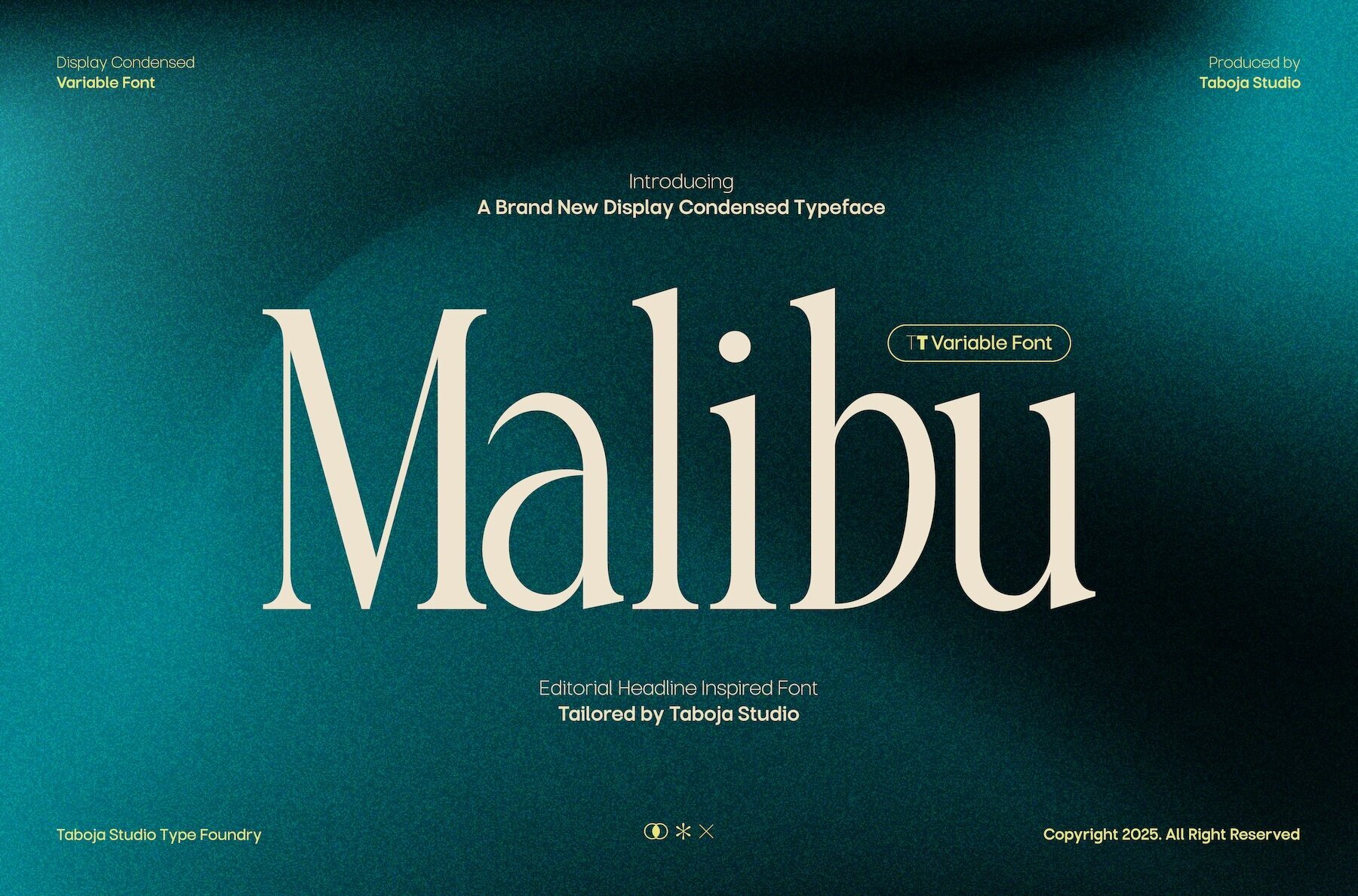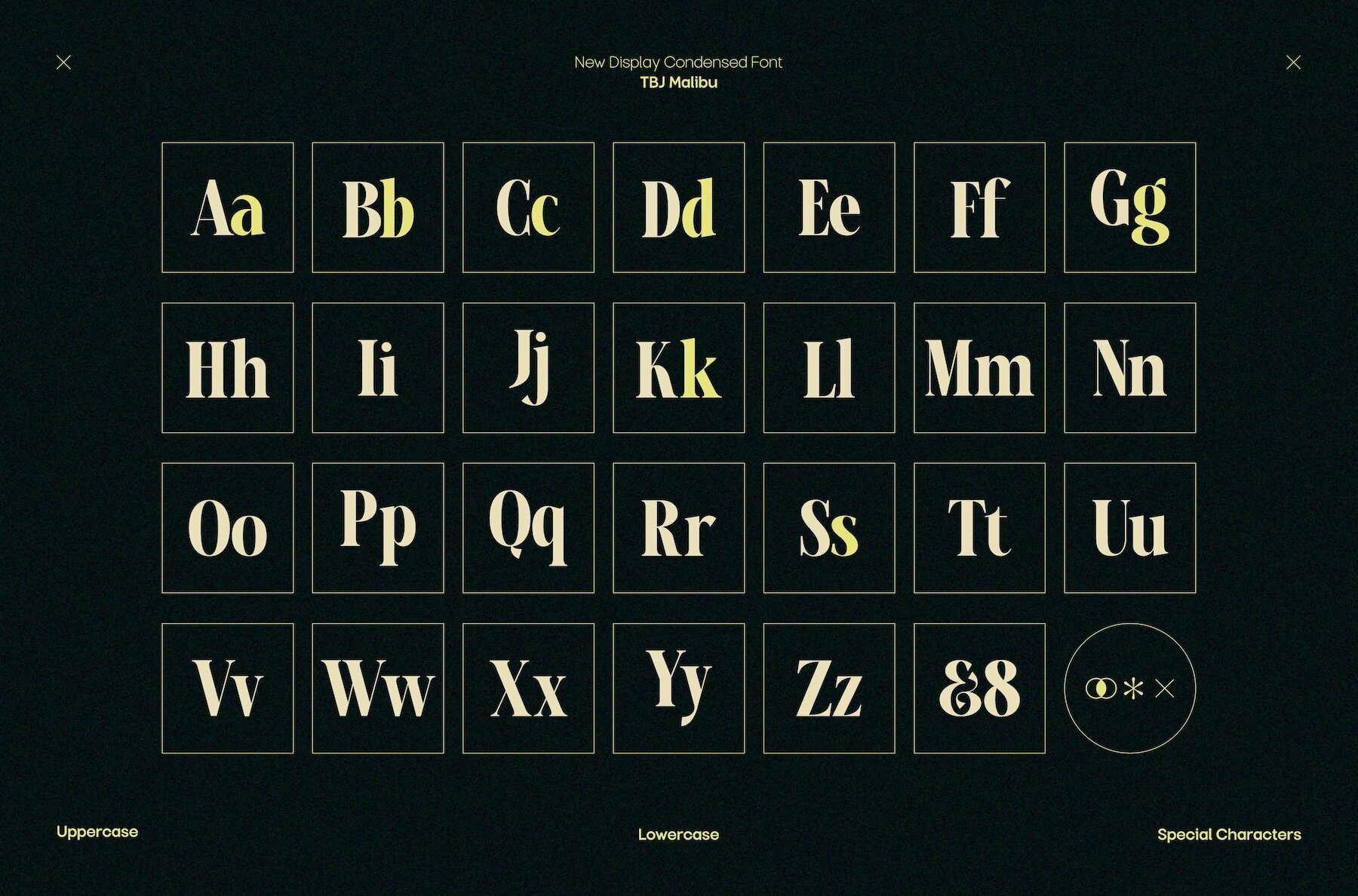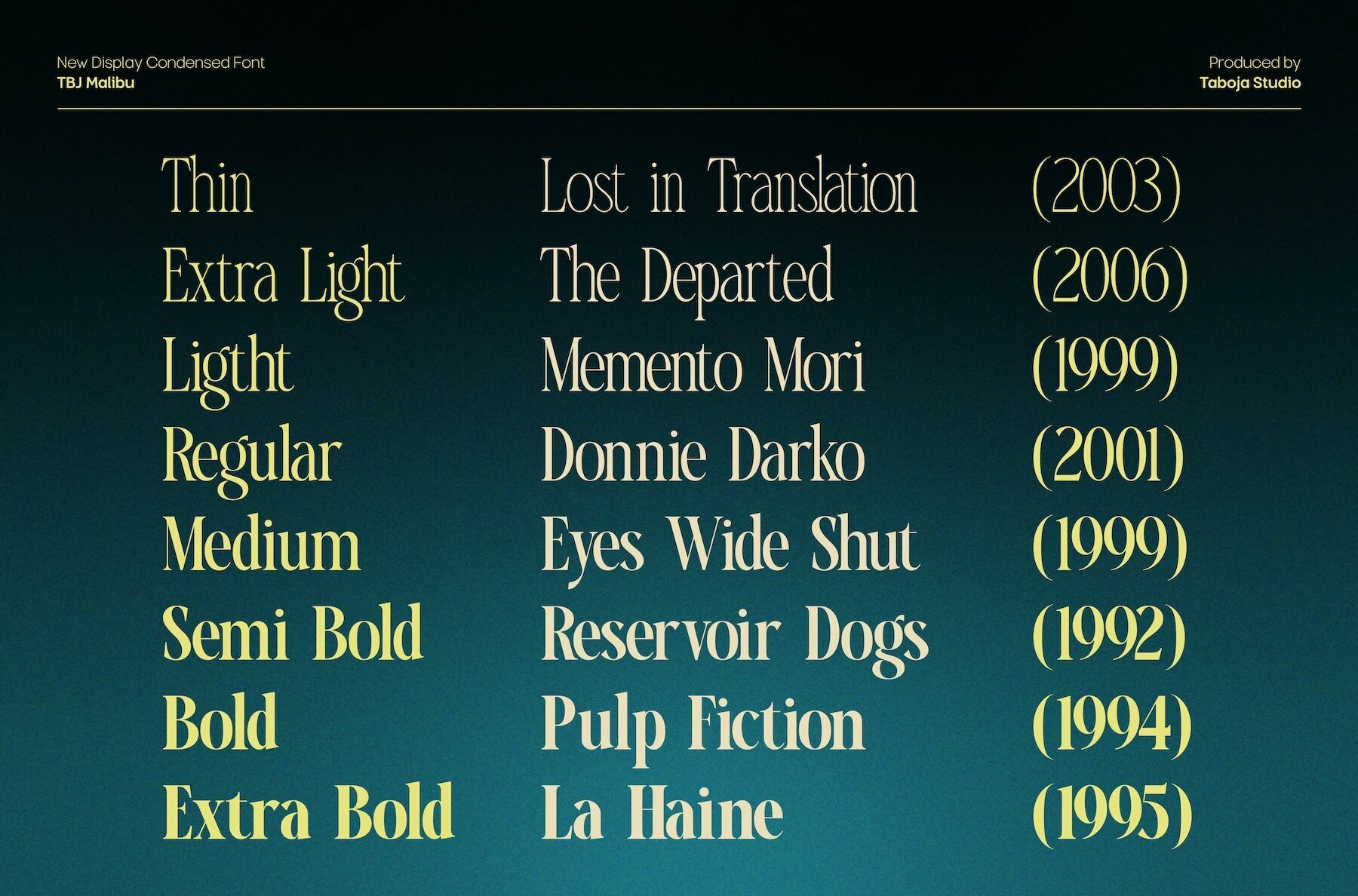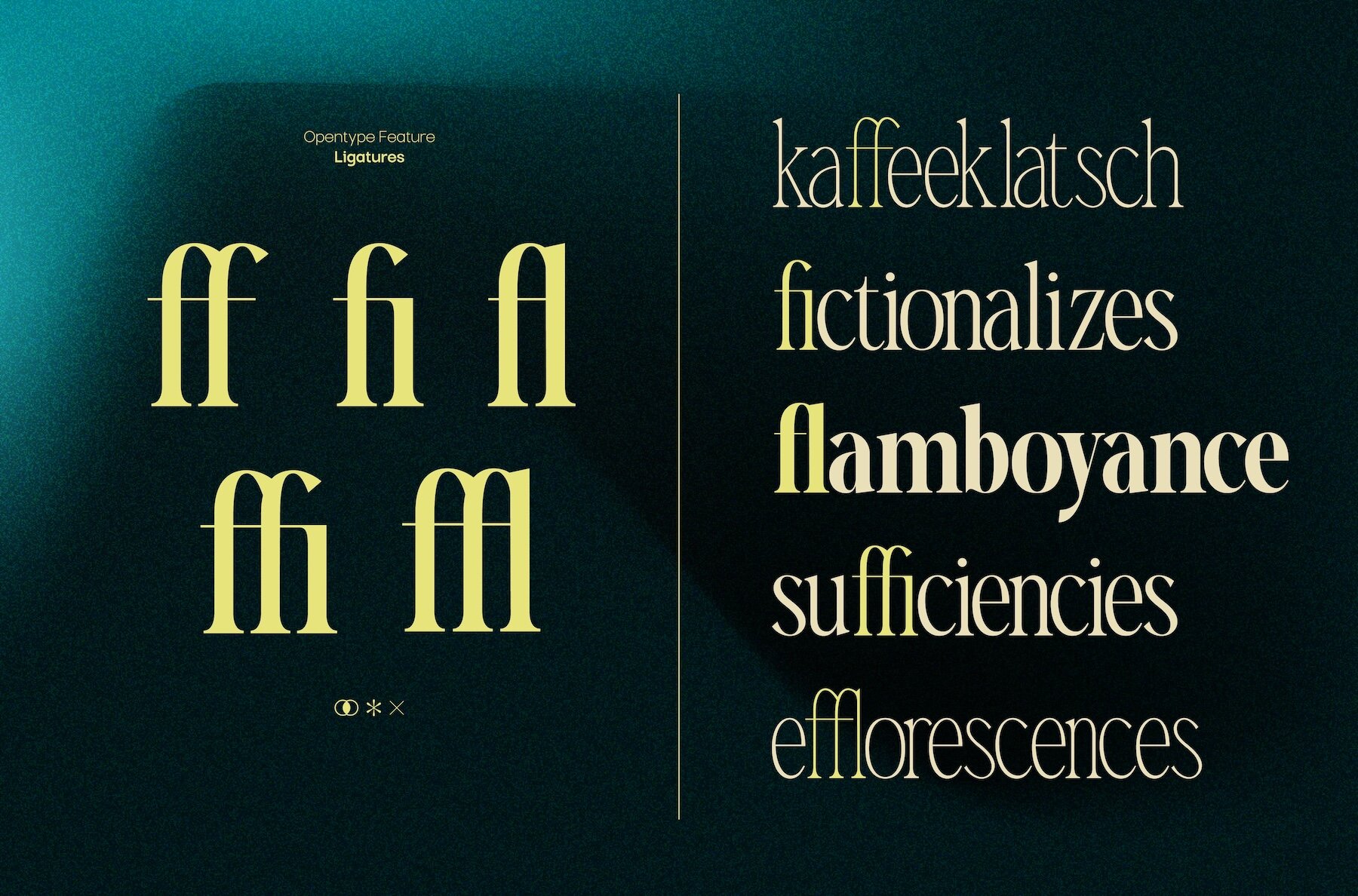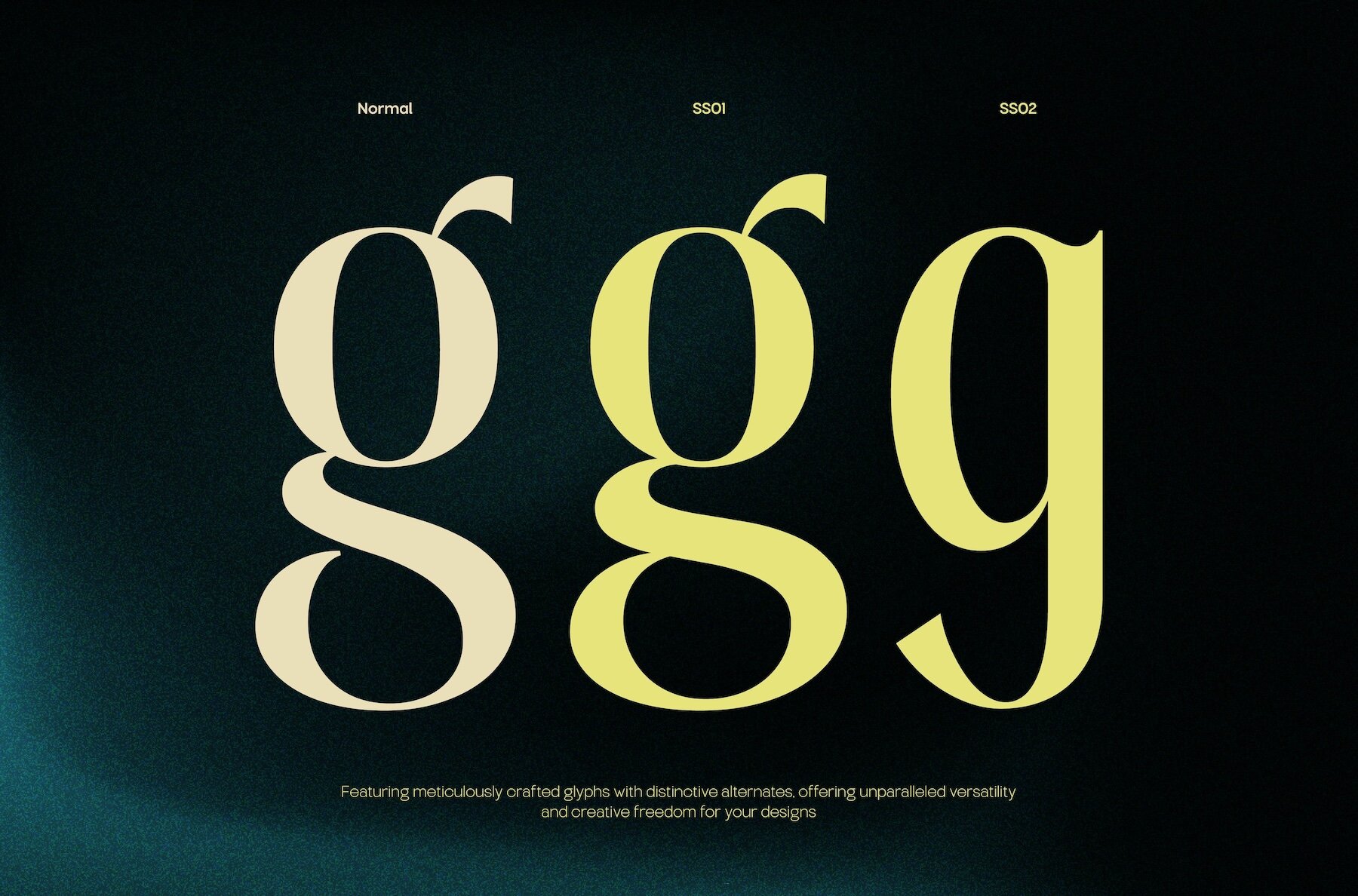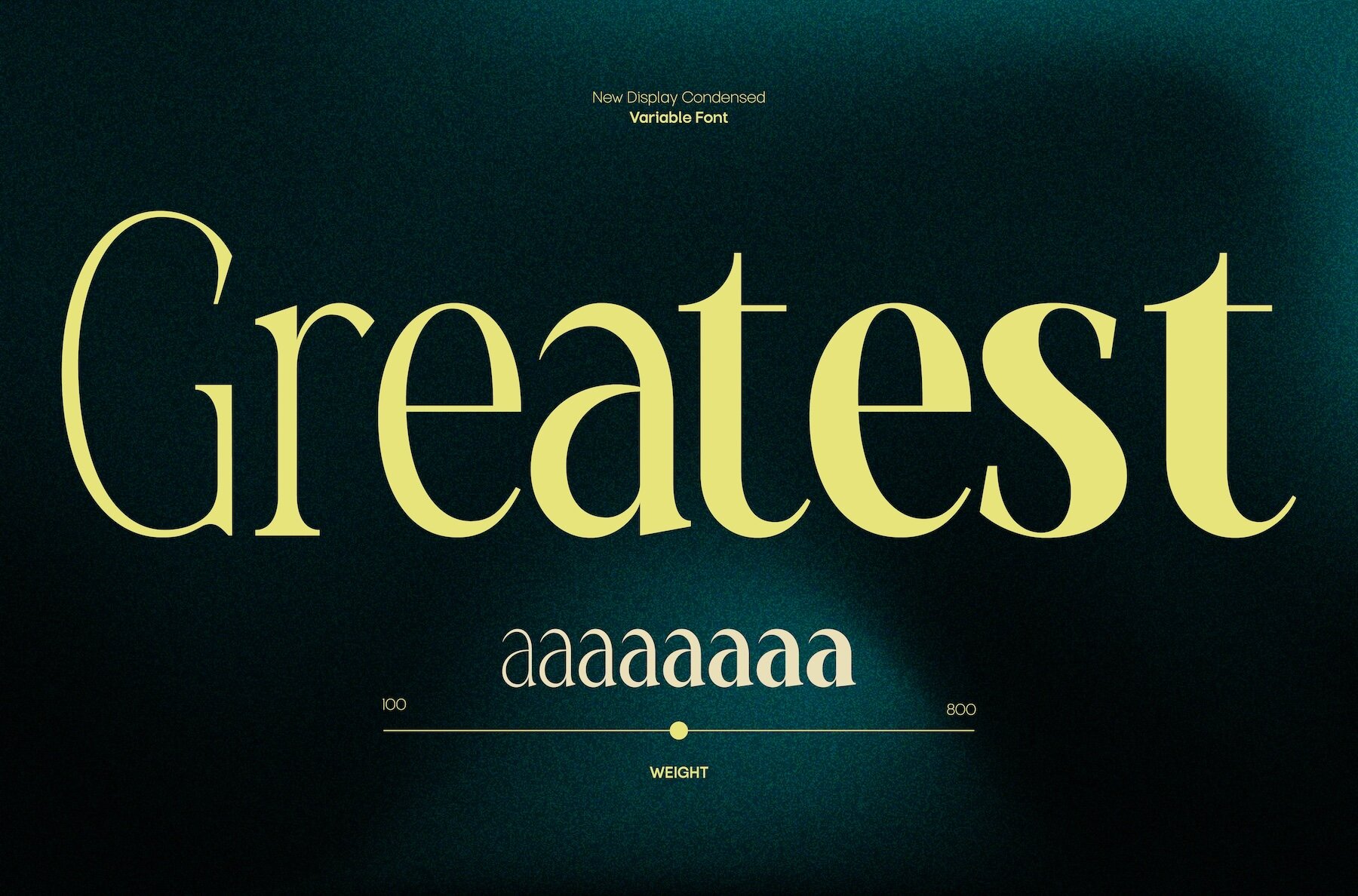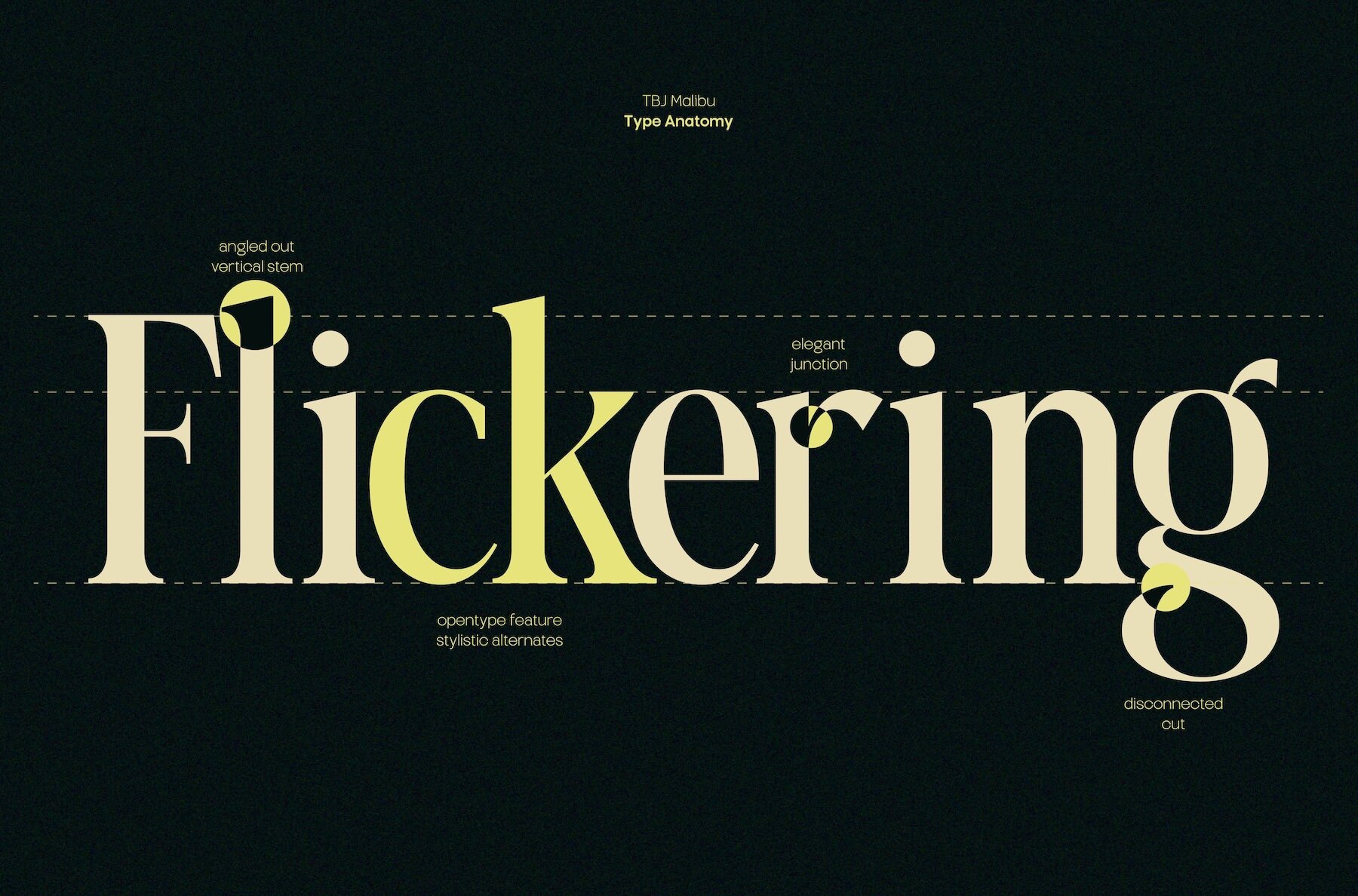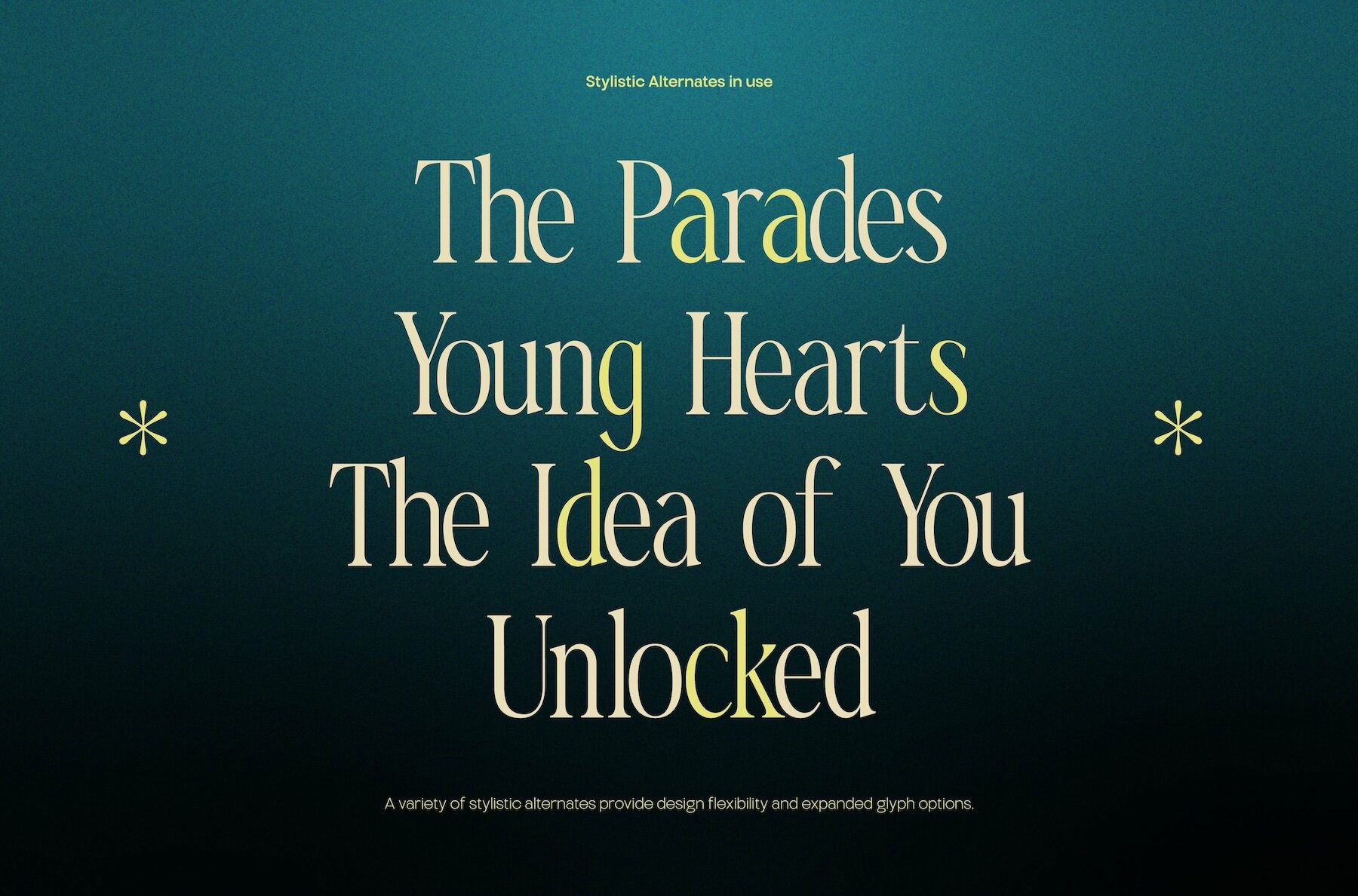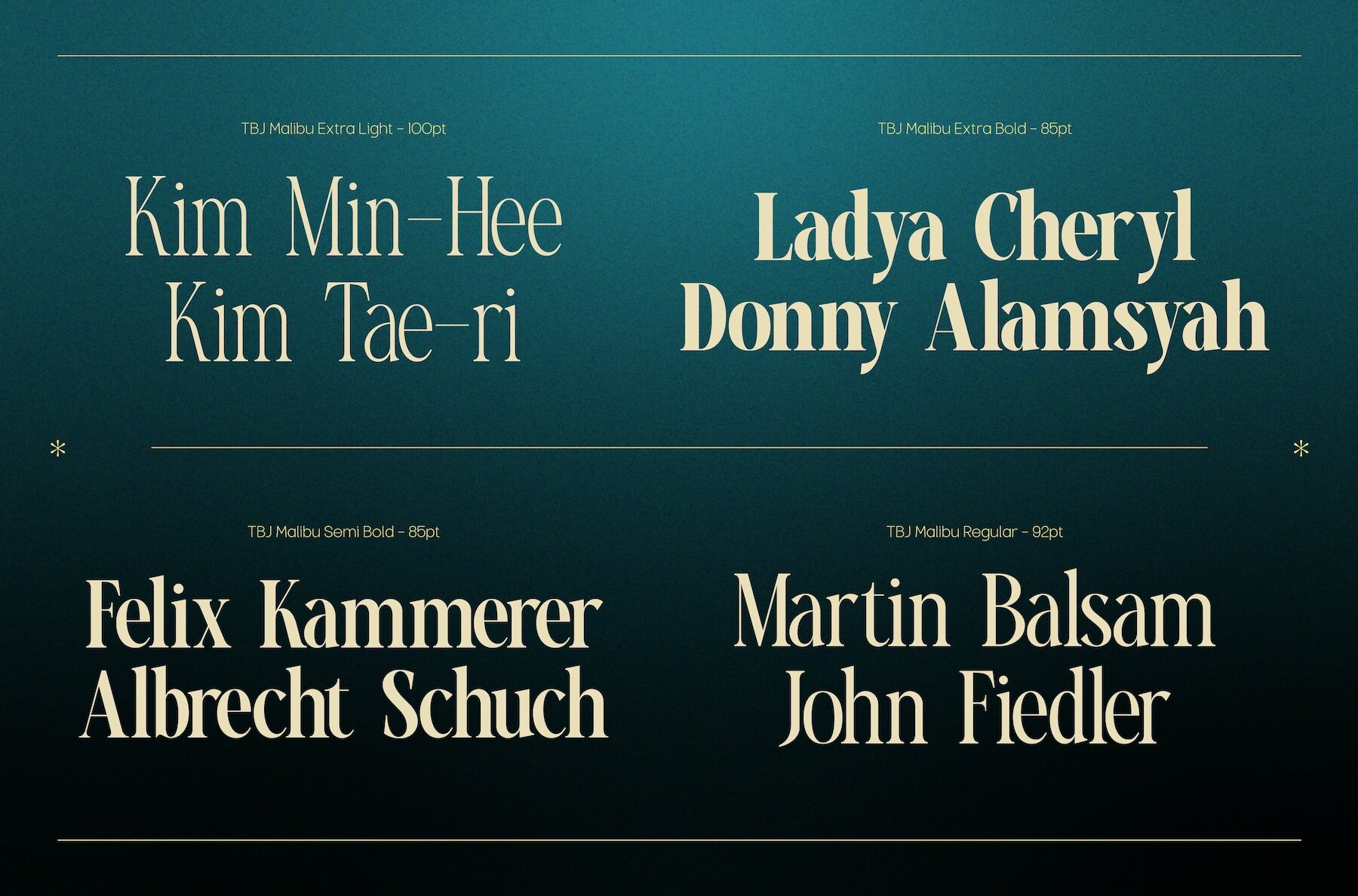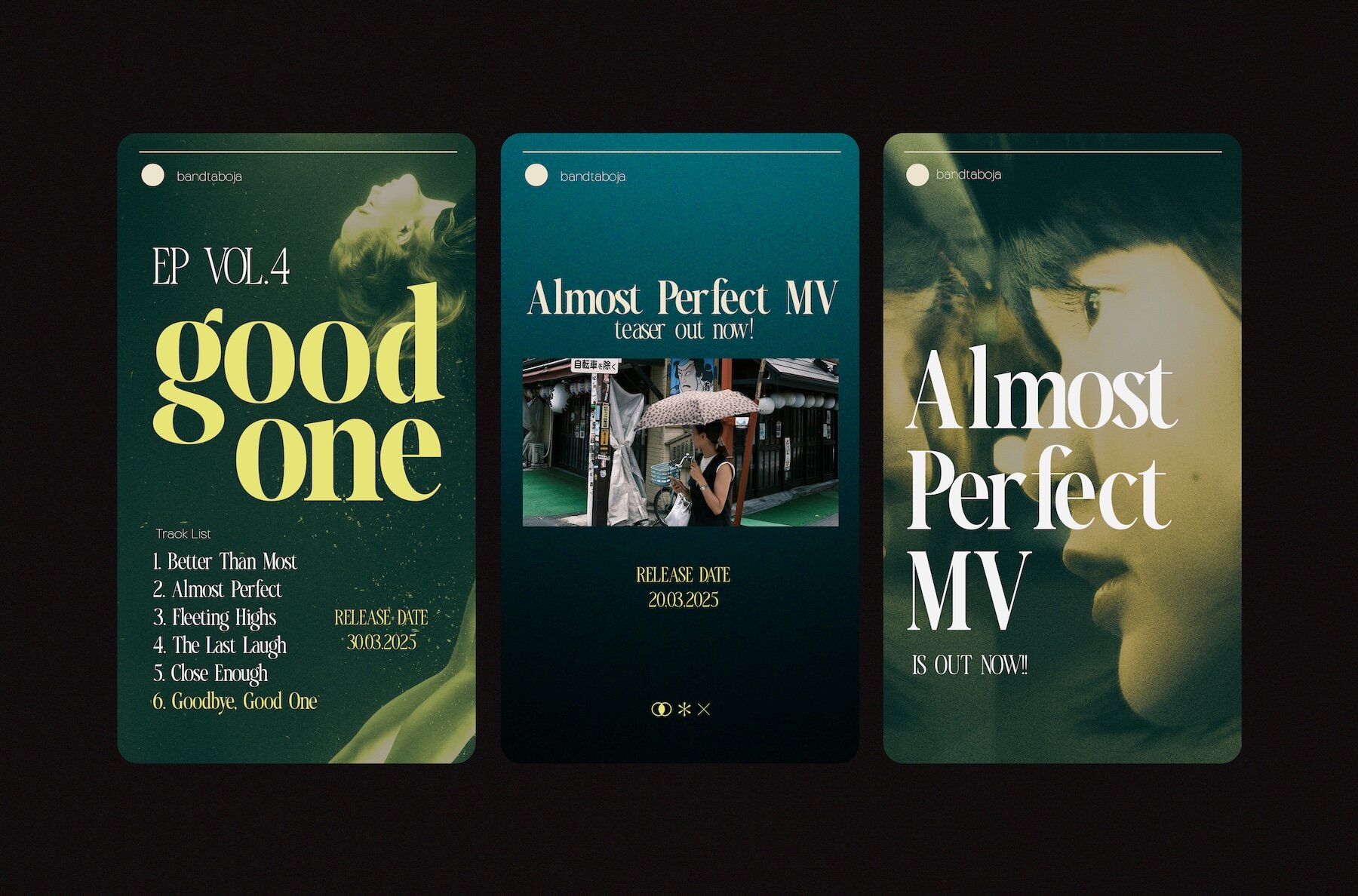
TBJ Malibu Font
TBJ Malibu is a stunning display font with Condensed style and Variable Font capability, produced by Taboja studio to set a new standard in the world of display typography. This font not only offers an elegant look with slim and tall proportions, but also provides tremendous flexibility with its 8 variable font variants. Each variant allows for width and weight adjustments, allowing designers to create compositions that truly fit their needs-from lighter, subtle typography, to more dramatic bold versions. The elegant green-blue graded background further strengthens the visual appeal of this font, showcasing its aesthetic potential that is perfect for branding, logos, editorials and other creative projects. TBJ Malibu is not just a font, but a flexible and characterful visual expression tool, designed to give an exclusive and contemporary feel in a wide range of design applications. While using this product, if you encounter any problem or spot something we may have missed, please don't hesitate to drop us a message. We'd love to hear your feedbacks in order to further fine-tune our products. Stay creative and have a wonderful day.